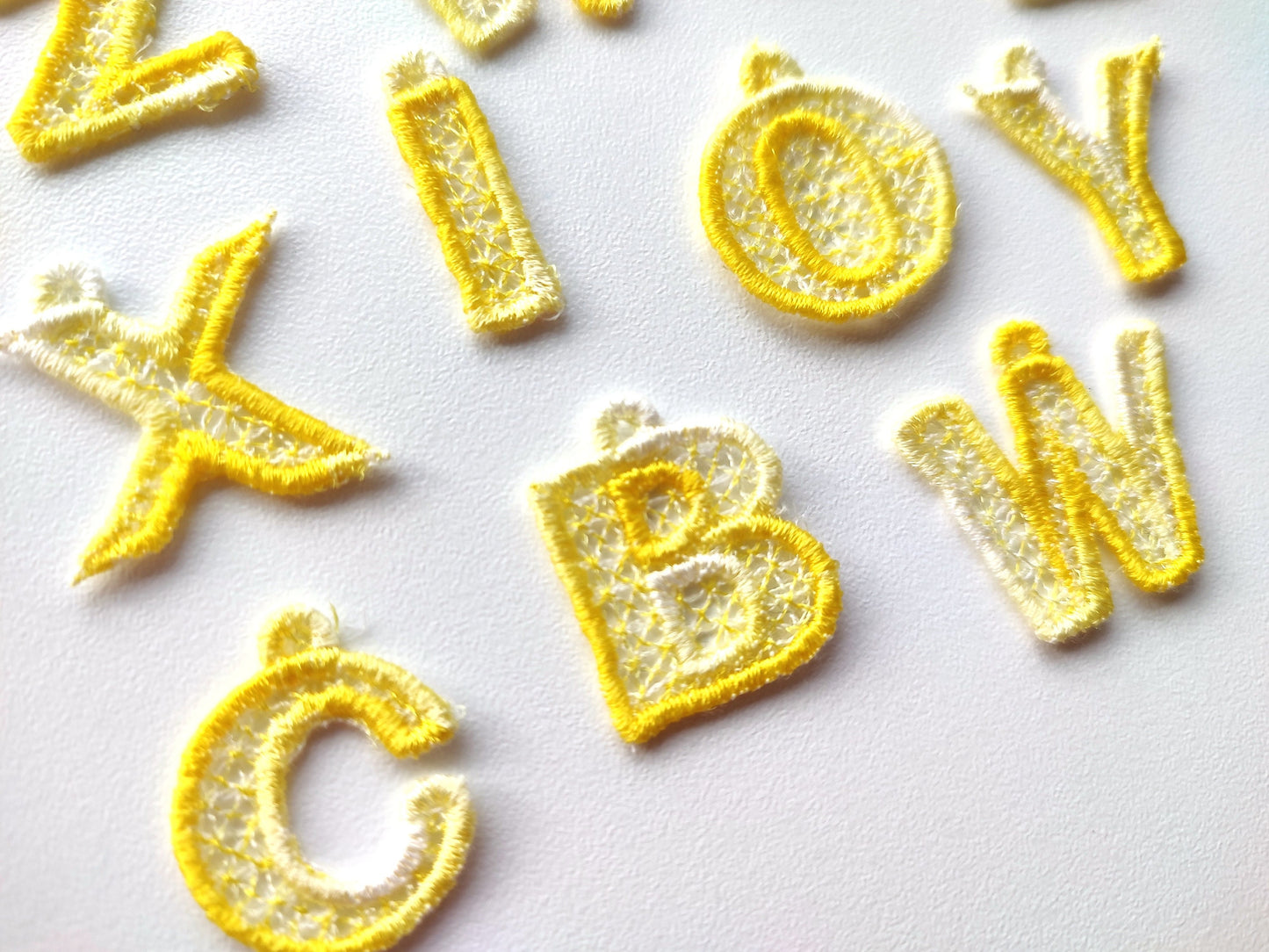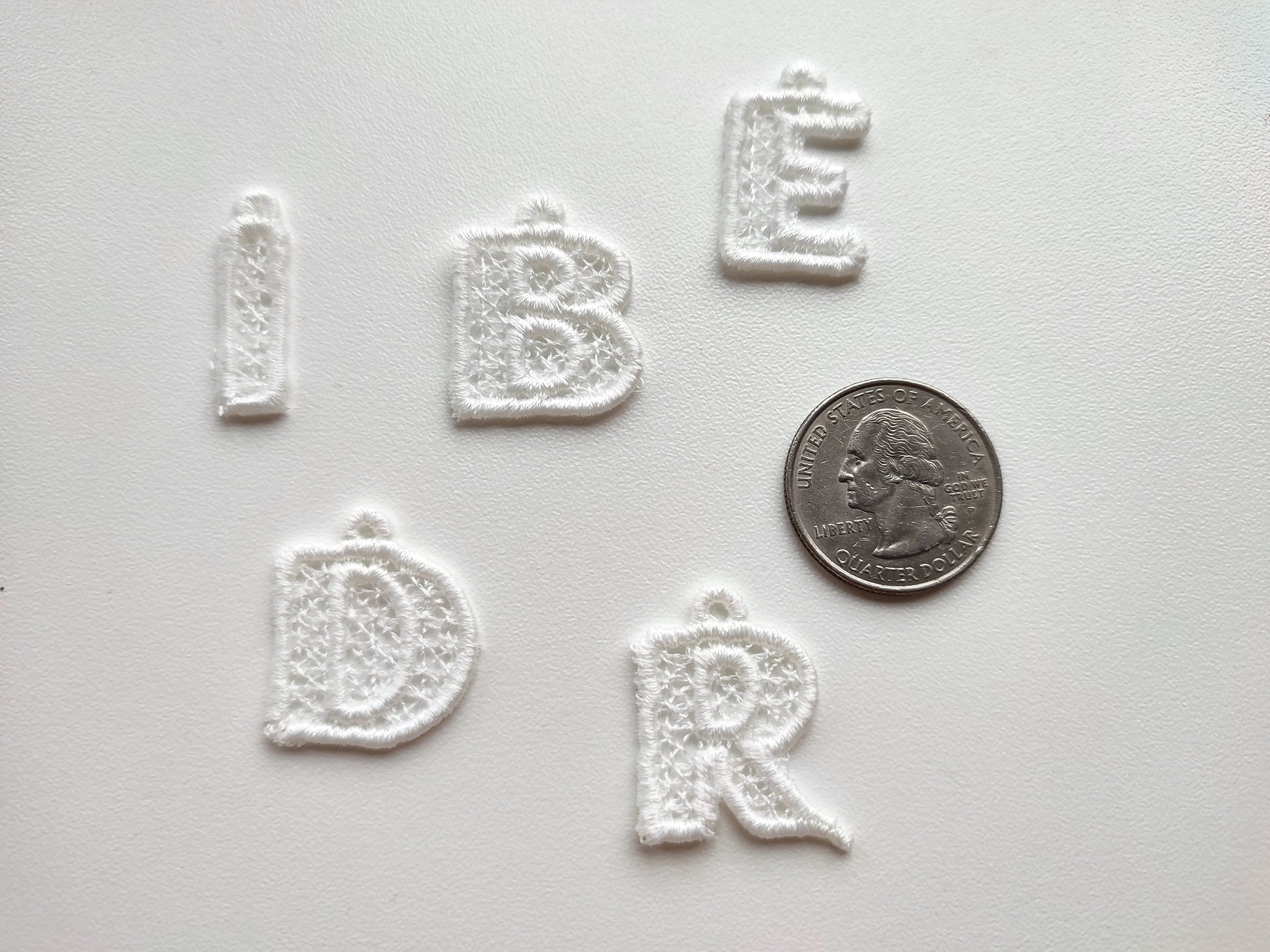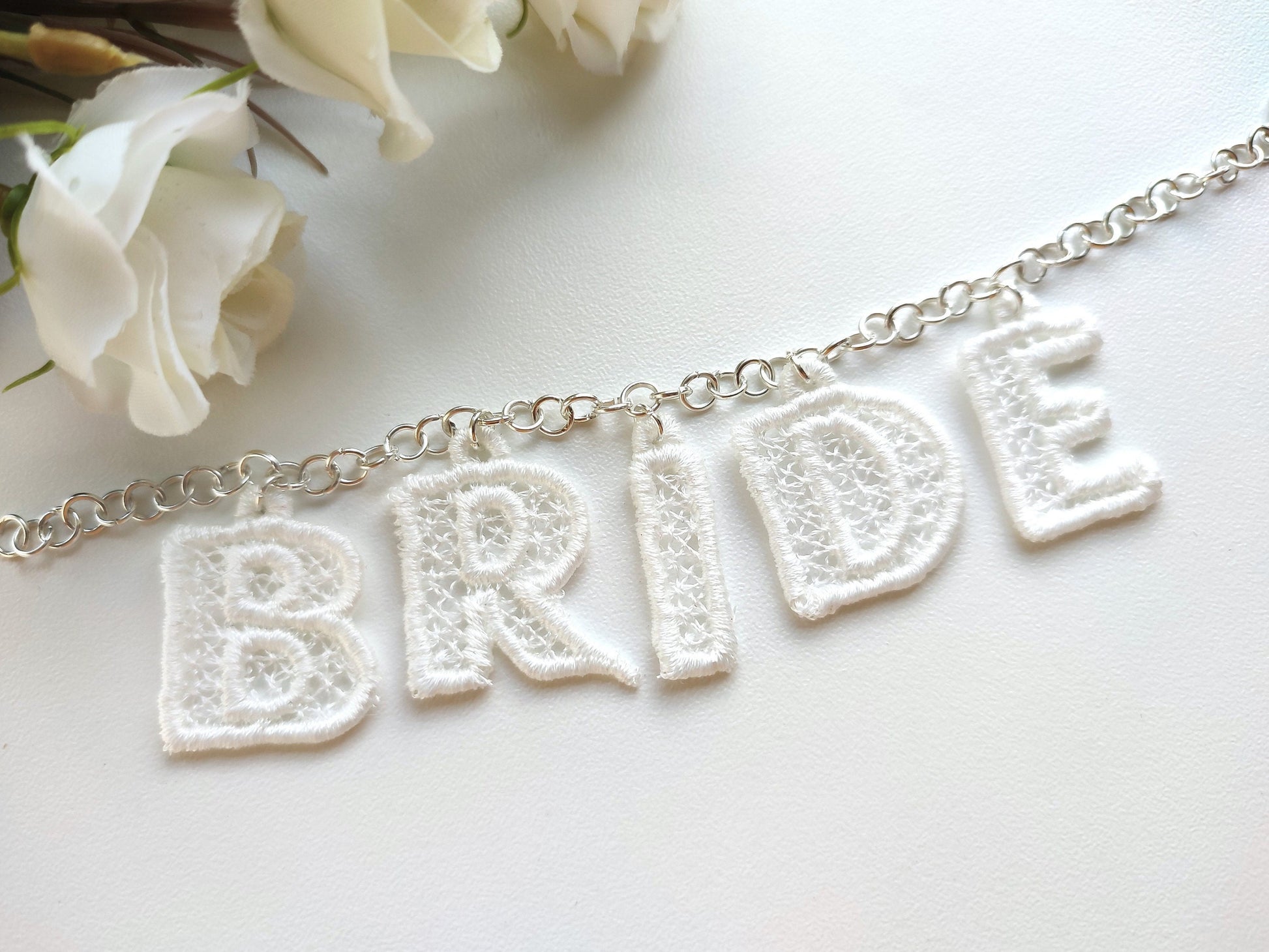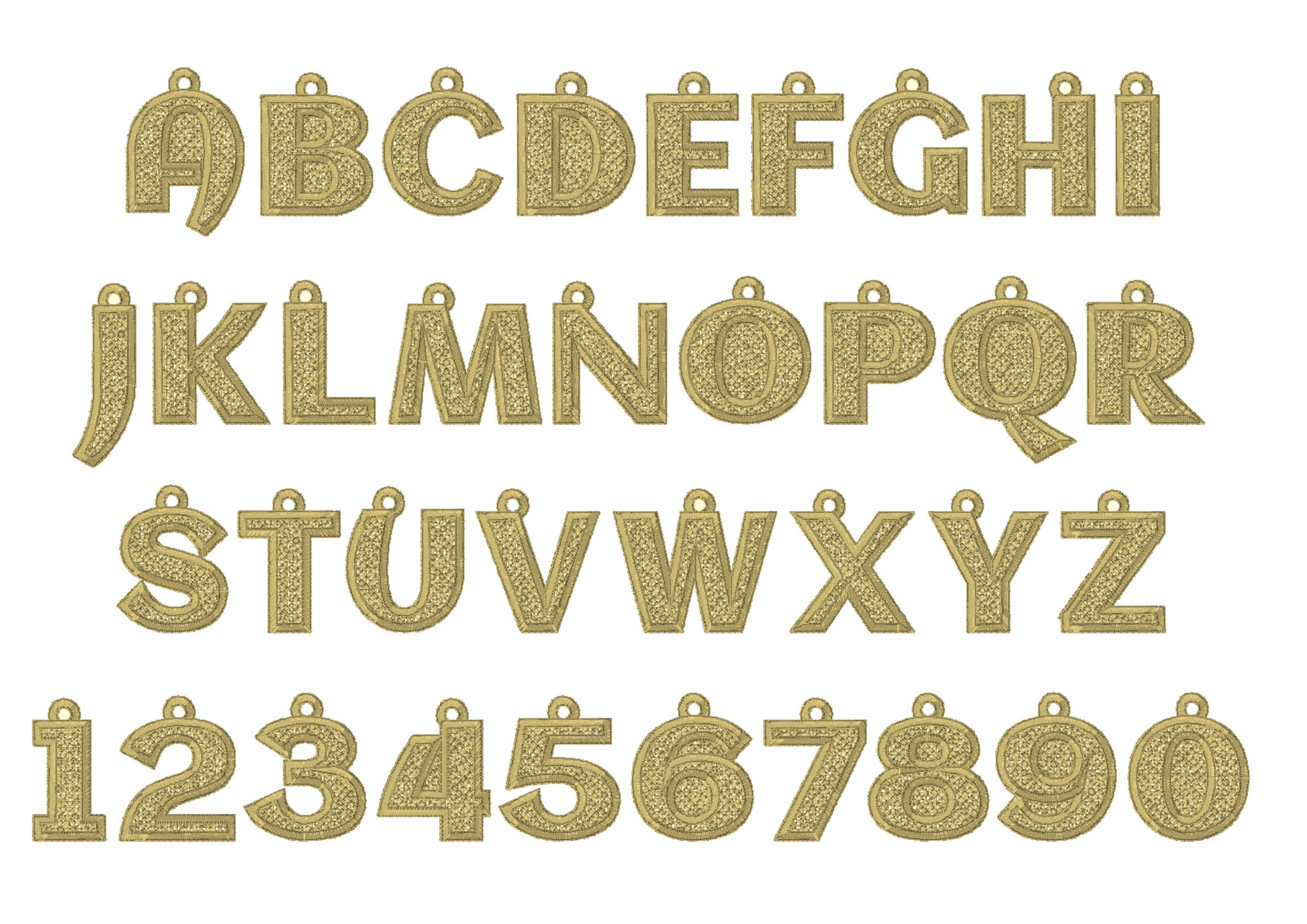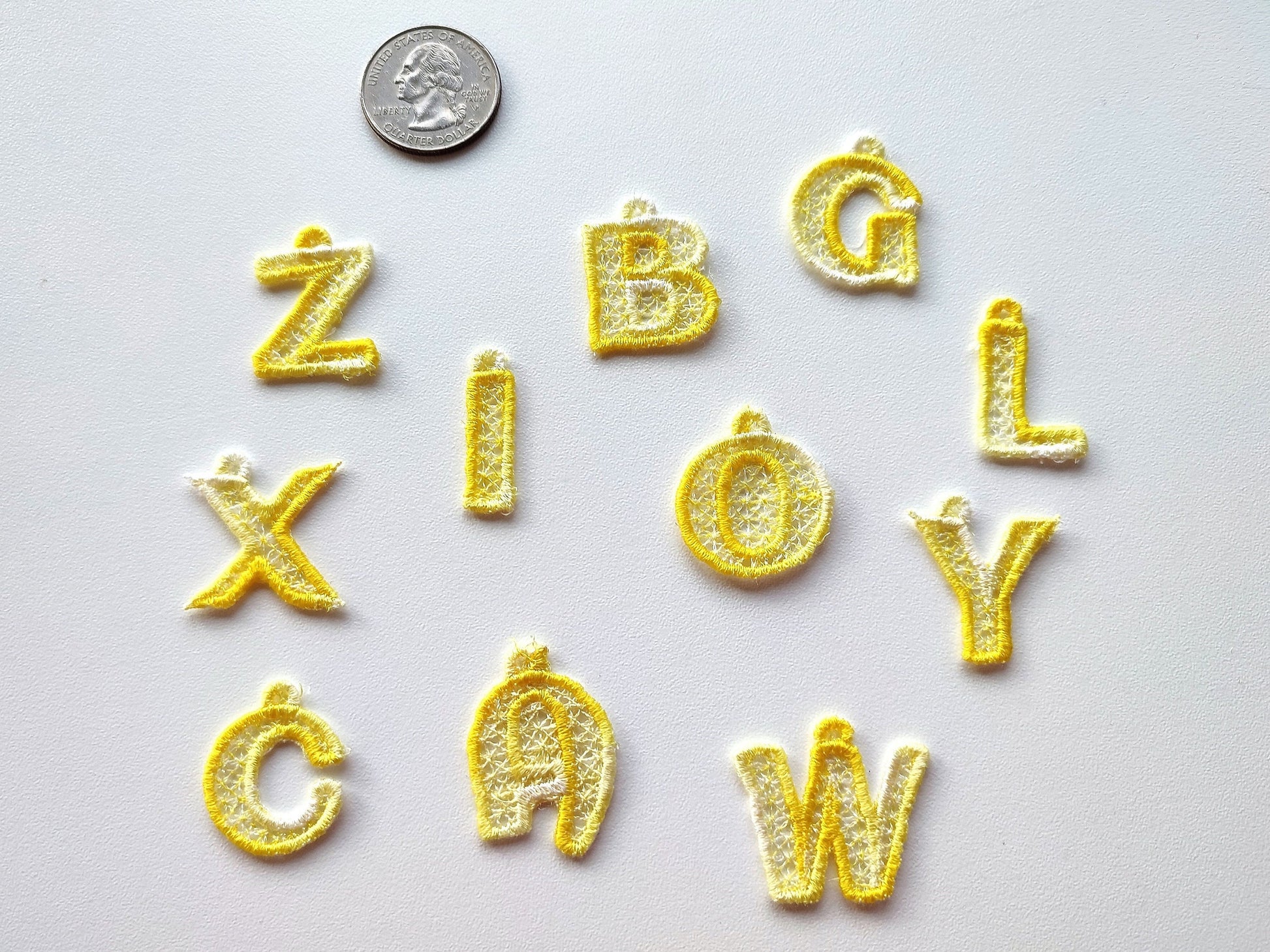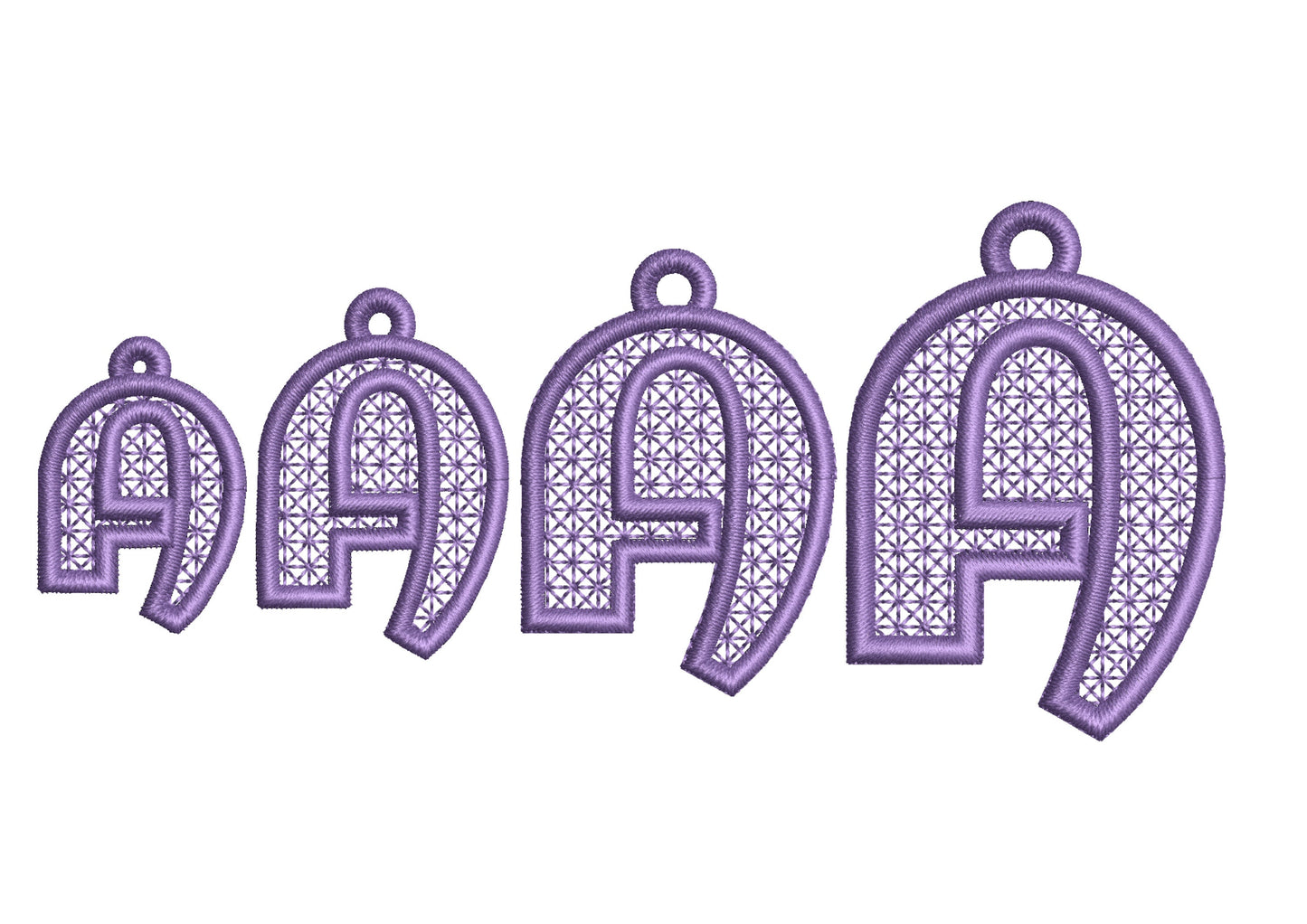
Bridesmaid Bride Lace Font FSL
Or click to open the linkFreestanding lace hanging letters for weddings, for bride and bridesmaid gifts, charms, garlands and favors.
Uppercase A to Z, numbers 0 to 9 and an ampersand, plus extra two-loop styles of H, K, M, N, U, V, X and Y. Four sizes: 1.5, 1.7, 2 and 2.5 inches.
- Freestanding lace hanging letters
- Uppercase A-Z, numbers 0-9, &
- 4 sizes, 1.5 to 2.5 in